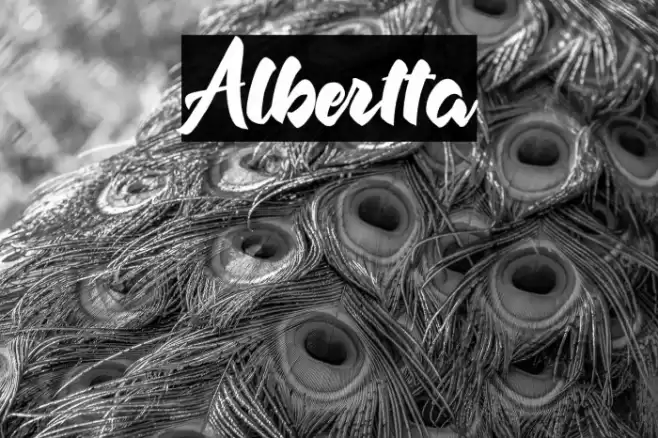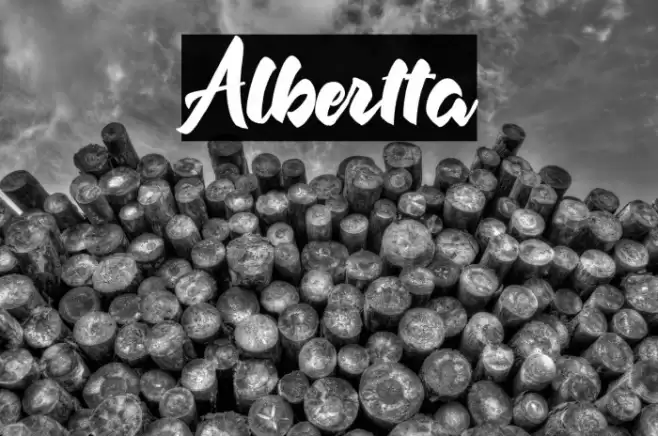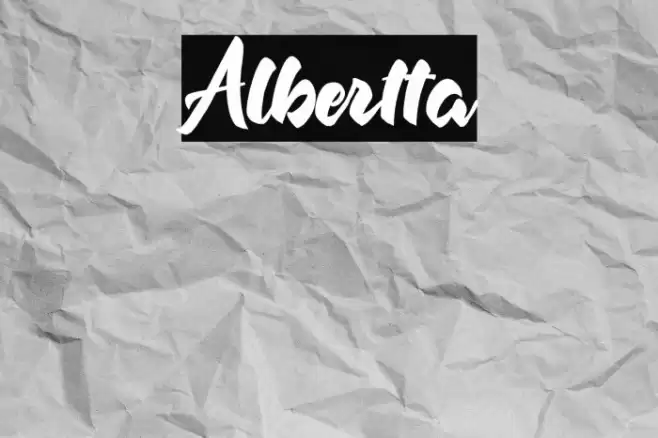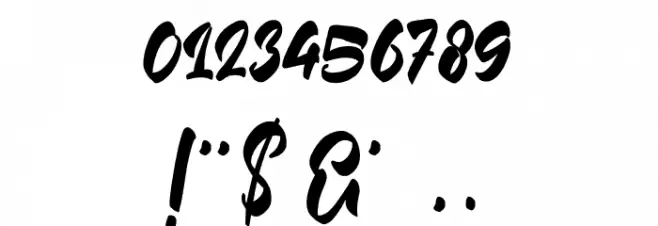
Albertta Font
Albertta Description
This font features a bold and expressive script style, characterized by its flowing, cursive letterforms that exude a sense of elegance and dynamism. The uppercase letters are particularly striking, with sweeping curves and a sense of movement that suggests a handwritten quality. The lowercase letters maintain this fluidity, offering a harmonious balance between readability and artistic flair. Numbers and special characters are crafted with the same attention to detail, ensuring consistency across all glyphs. The overall impression is one of sophistication and creativity, making it suitable for a variety of design applications.
A bold, expressive script font with elegant, flowing curves from Regular fonts.